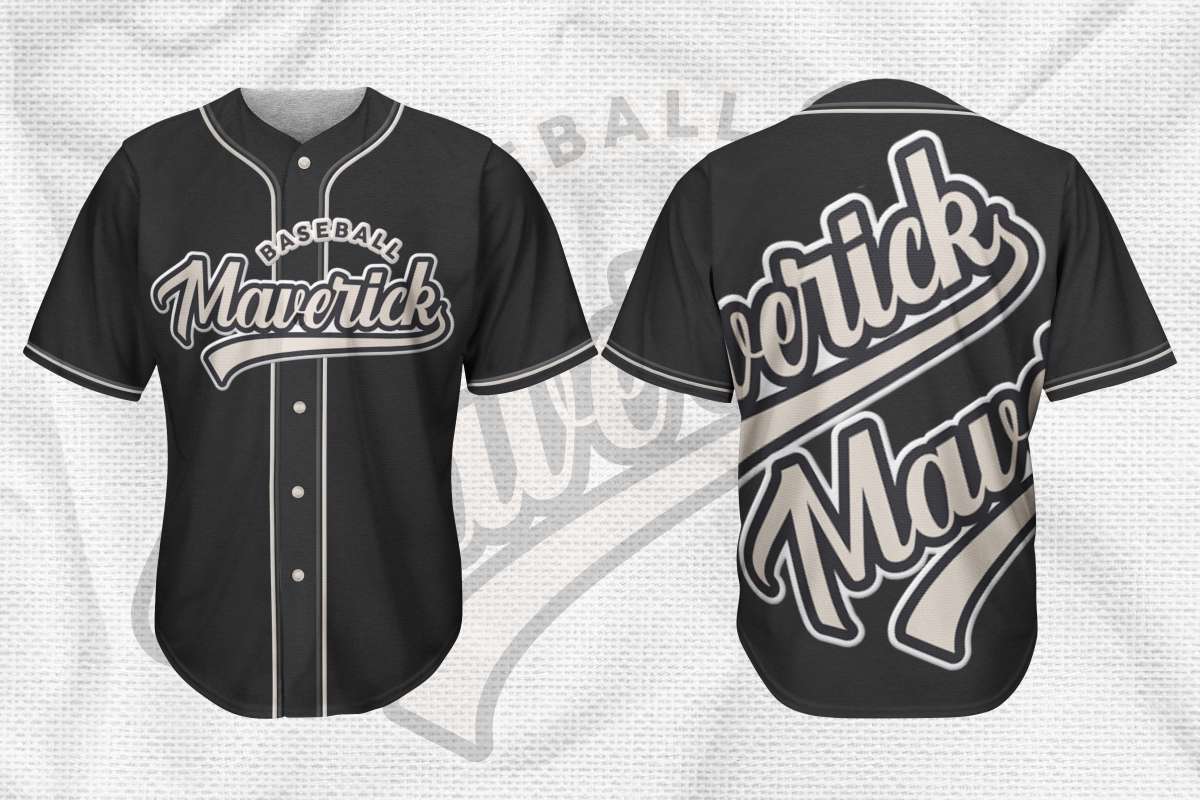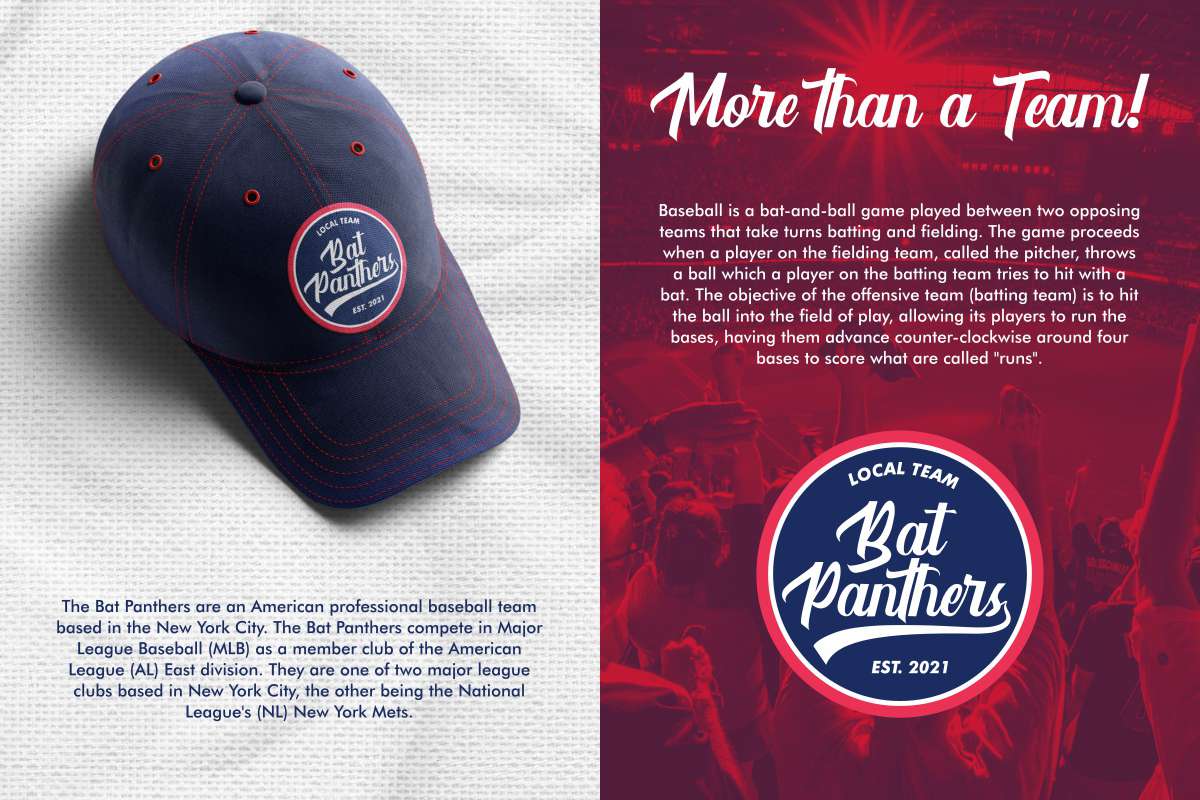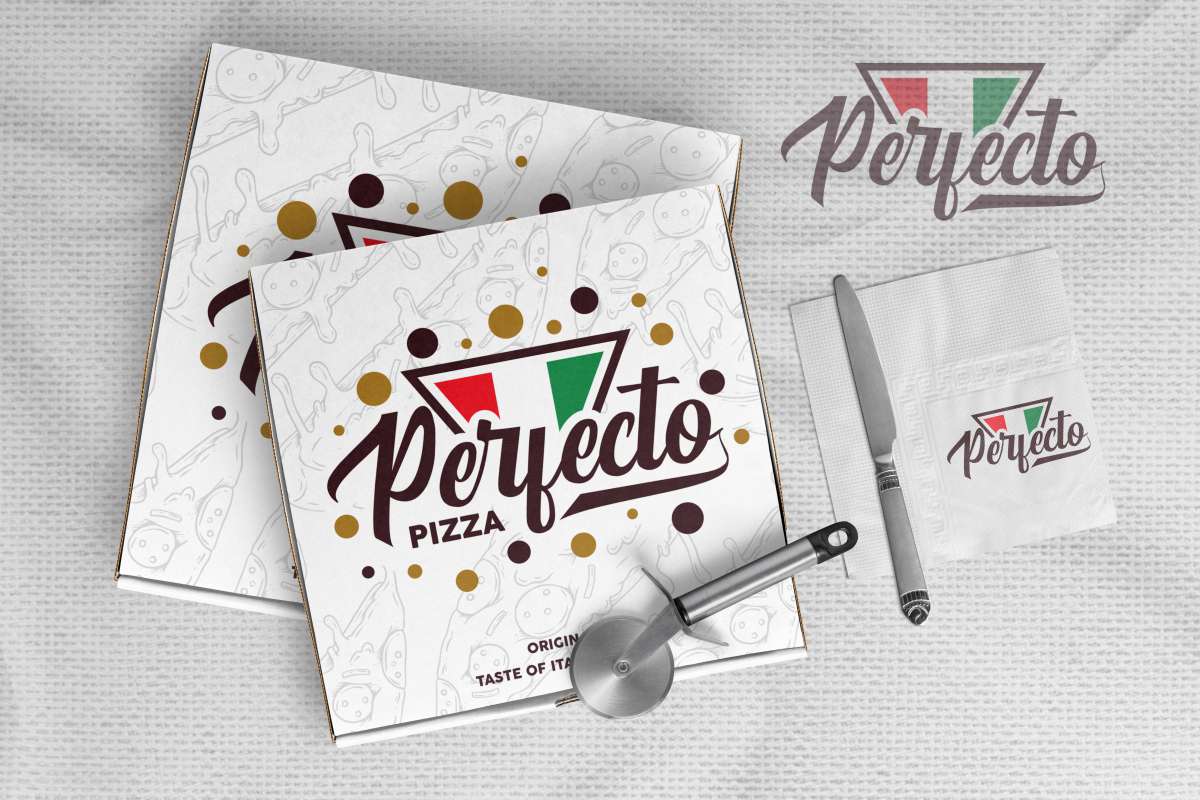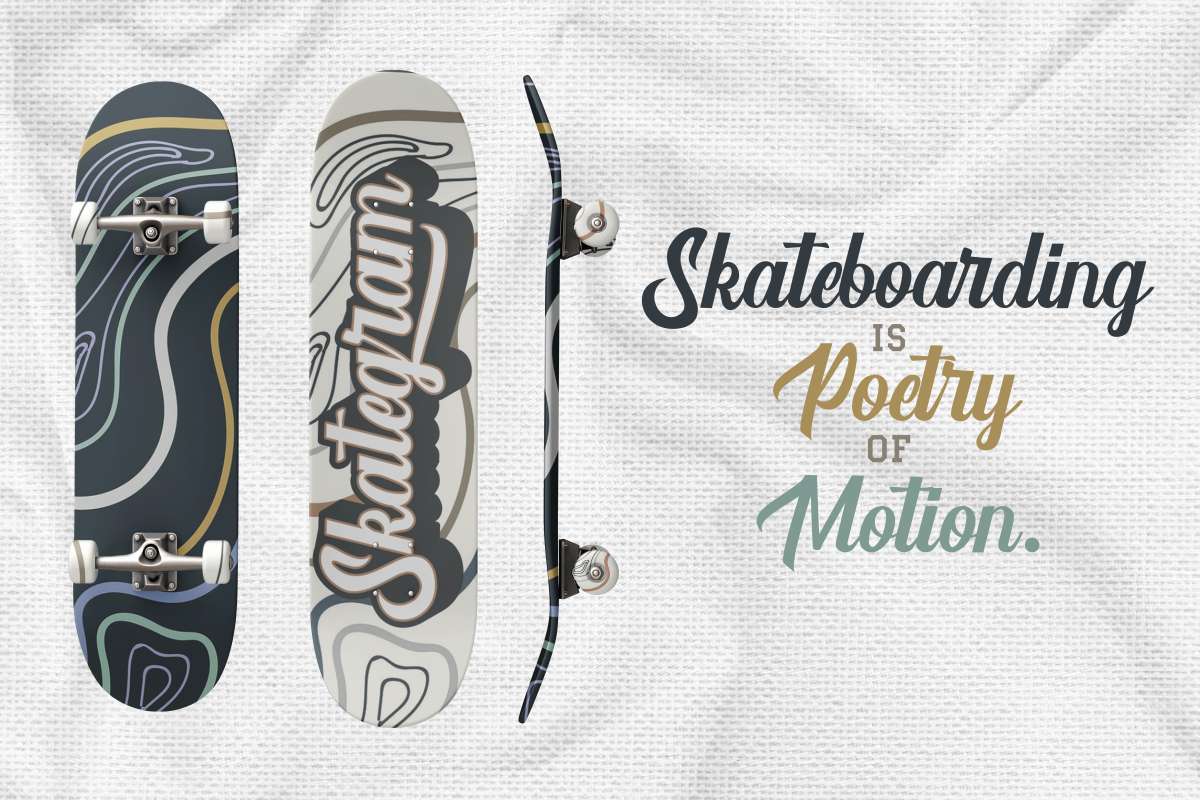
Hardball Font
Hardball Script Font
It’s a vintage sporty brush script font inspired by the bold and cool world of sports (like baseball), this font will be awesome for your projects. Use it for logo branding, poster, products packaging, signage, title, and more!
Hardball Font includes full set of Uppercase and Lowercase Basic Characters, Numerals and Punctuation. This font would be great to use for any project that requires a sporty look!